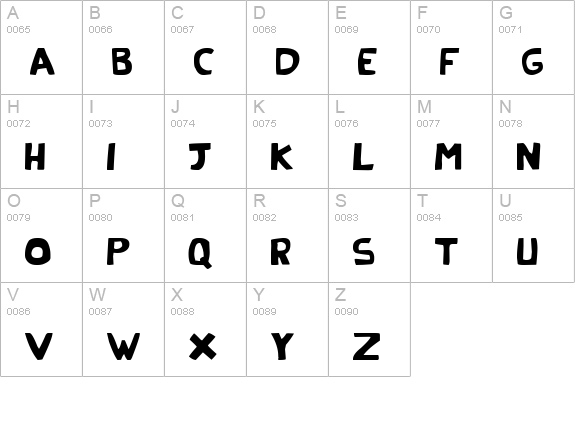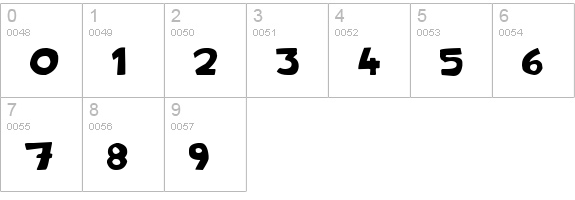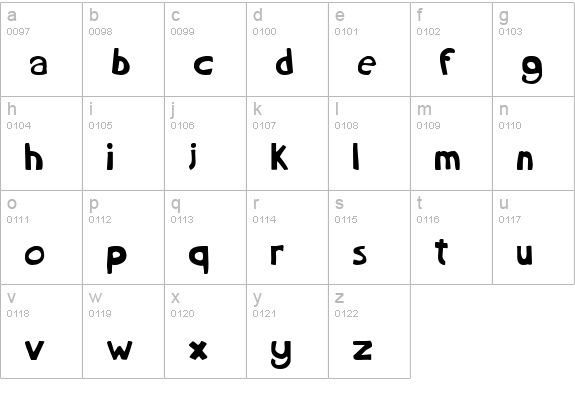
The Rabbids Go Home font is a quirky and playful typeface inspired by the mischievous and zany characters from the popular video game series. With its whimsical and slightly off-kilter design, this font captures the essence of the Rabbids' chaotic and hilarious antics. Perfect for adding a touch of fun and personality to your projects, the Rabbids Go Home font is sure to stand out and make a statement.